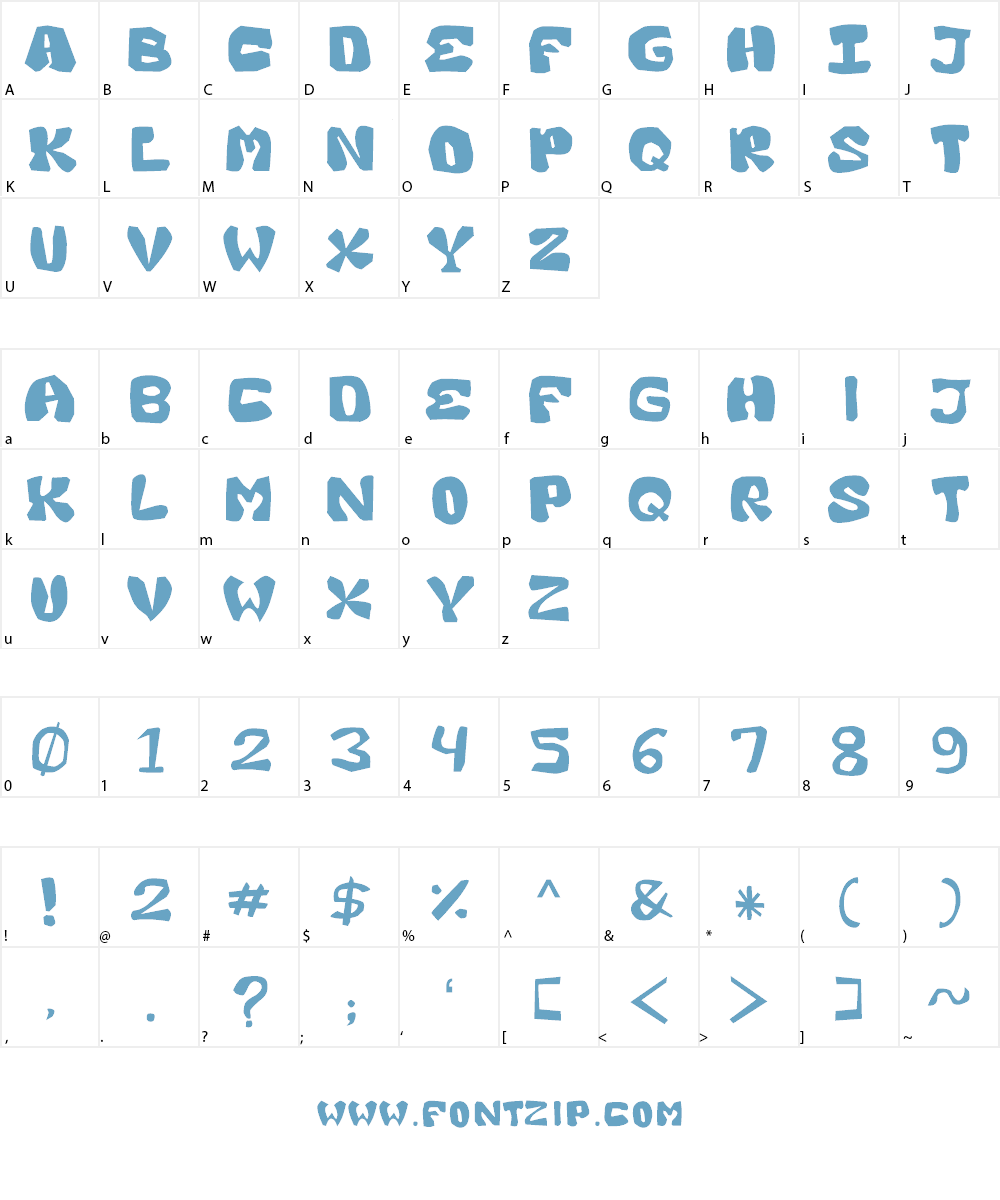
Hello all, here is my second typefce set work. Small case letters are also CAPITAL with a slight variation. Curly brackets will write breath marks. Have fun.